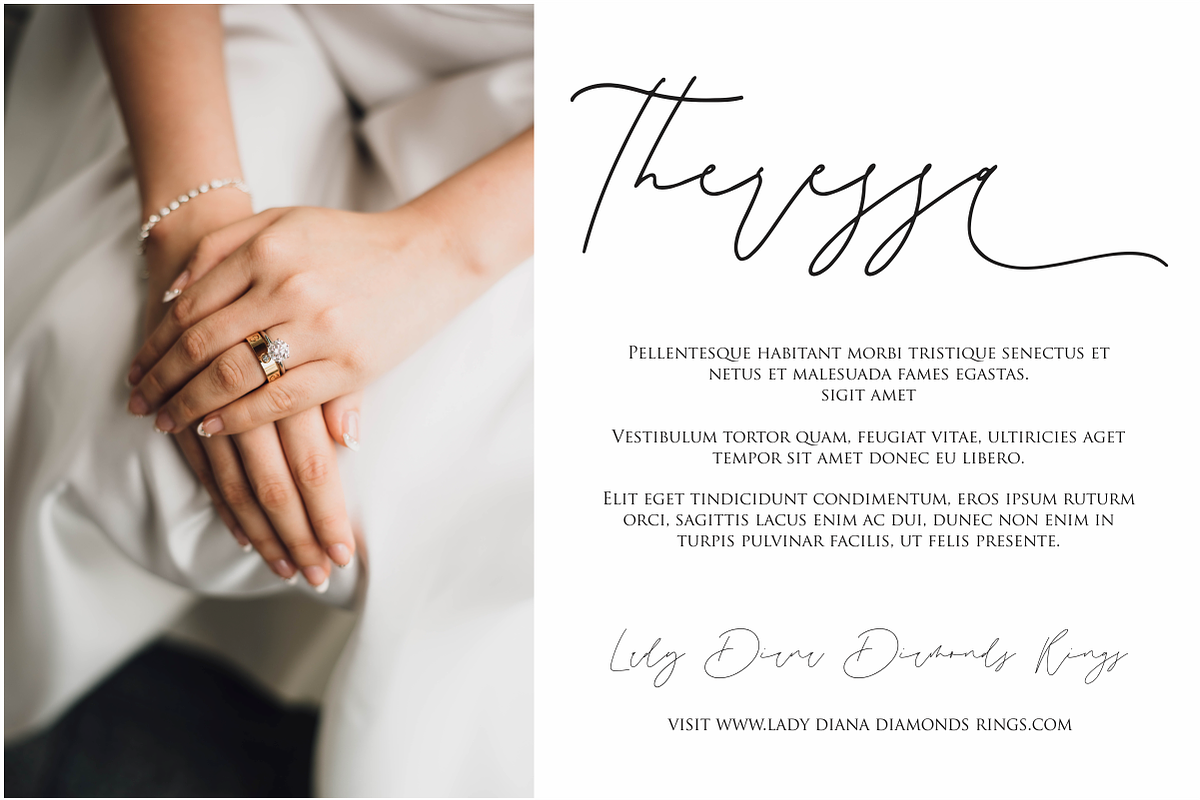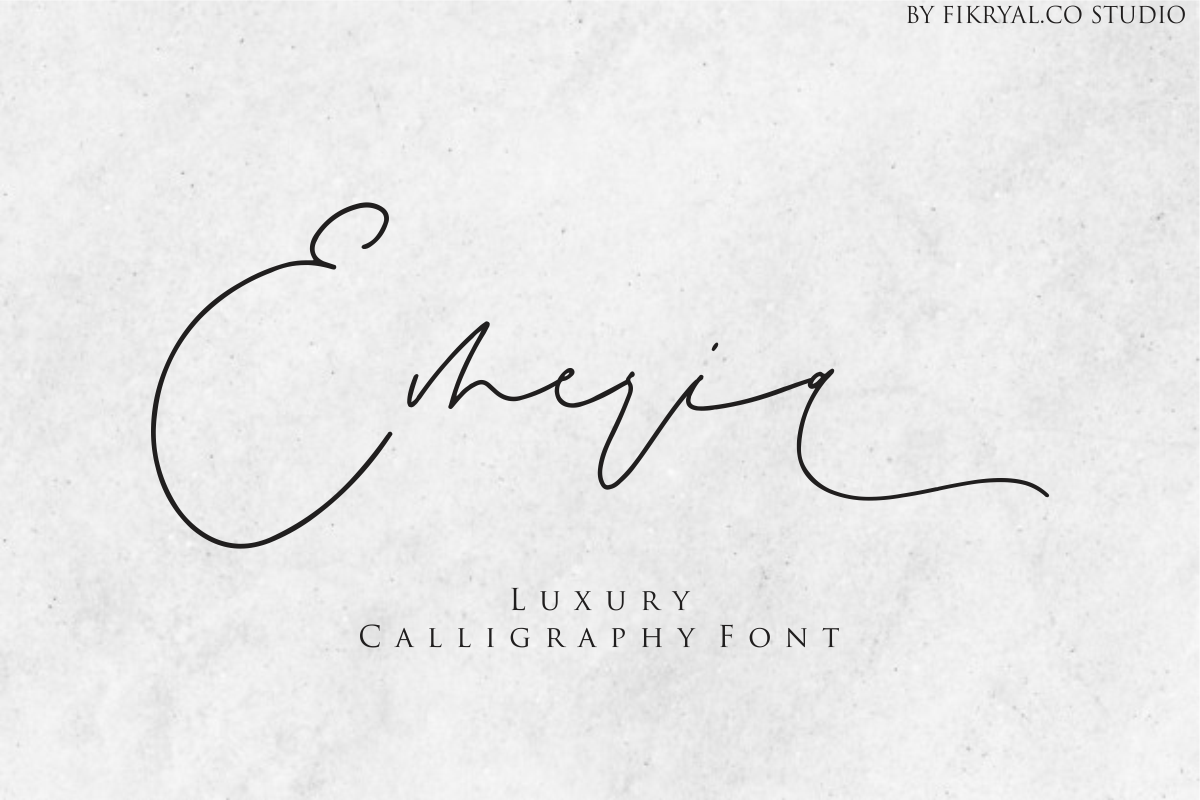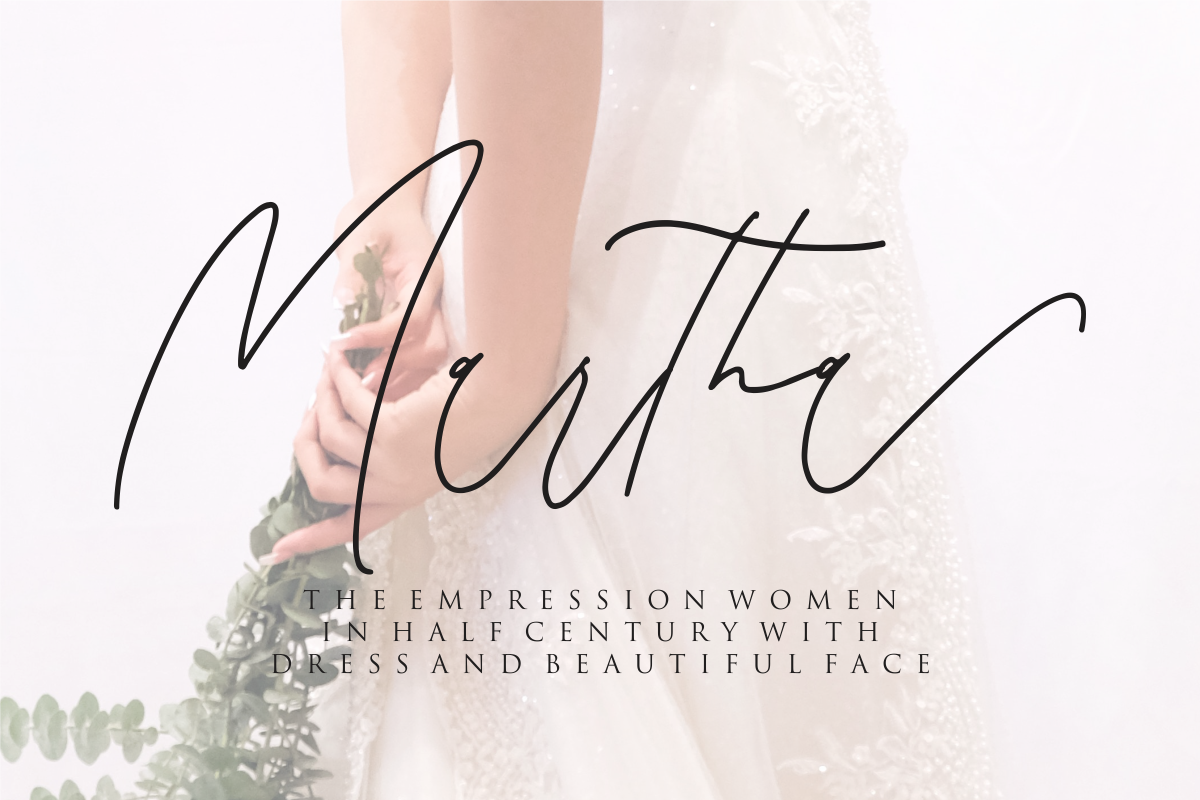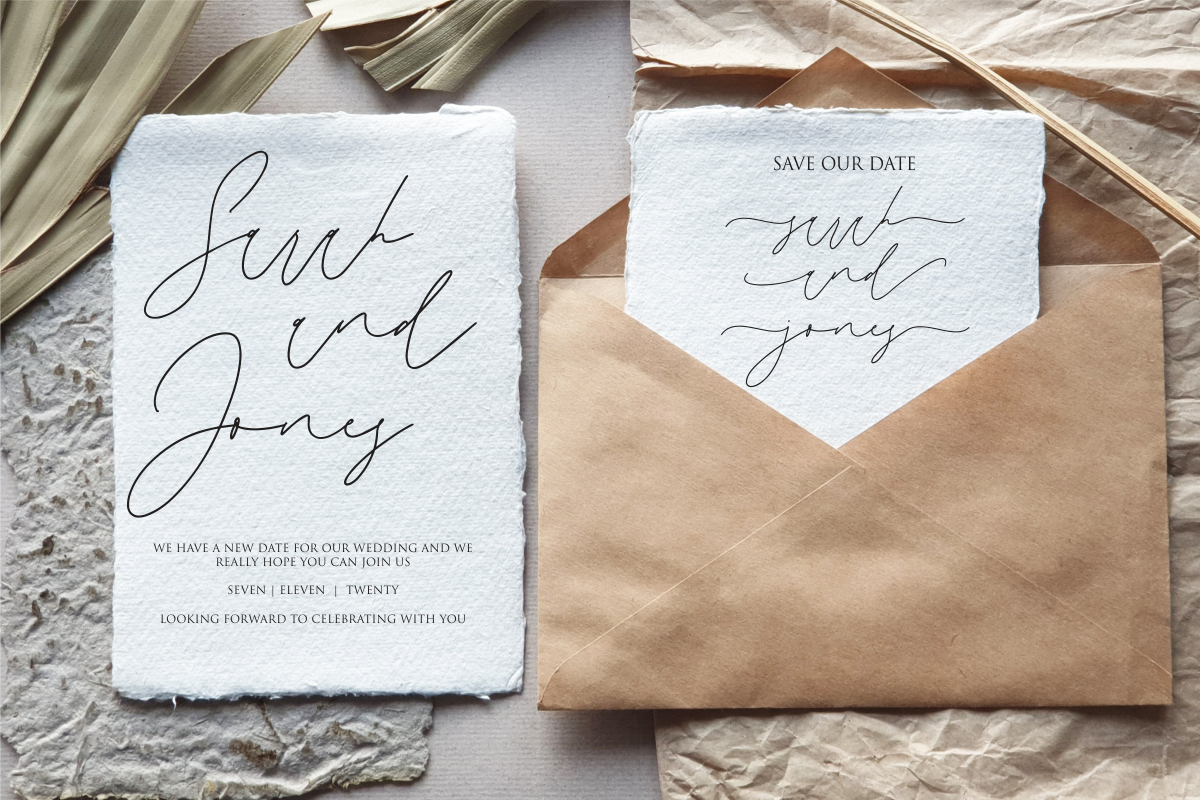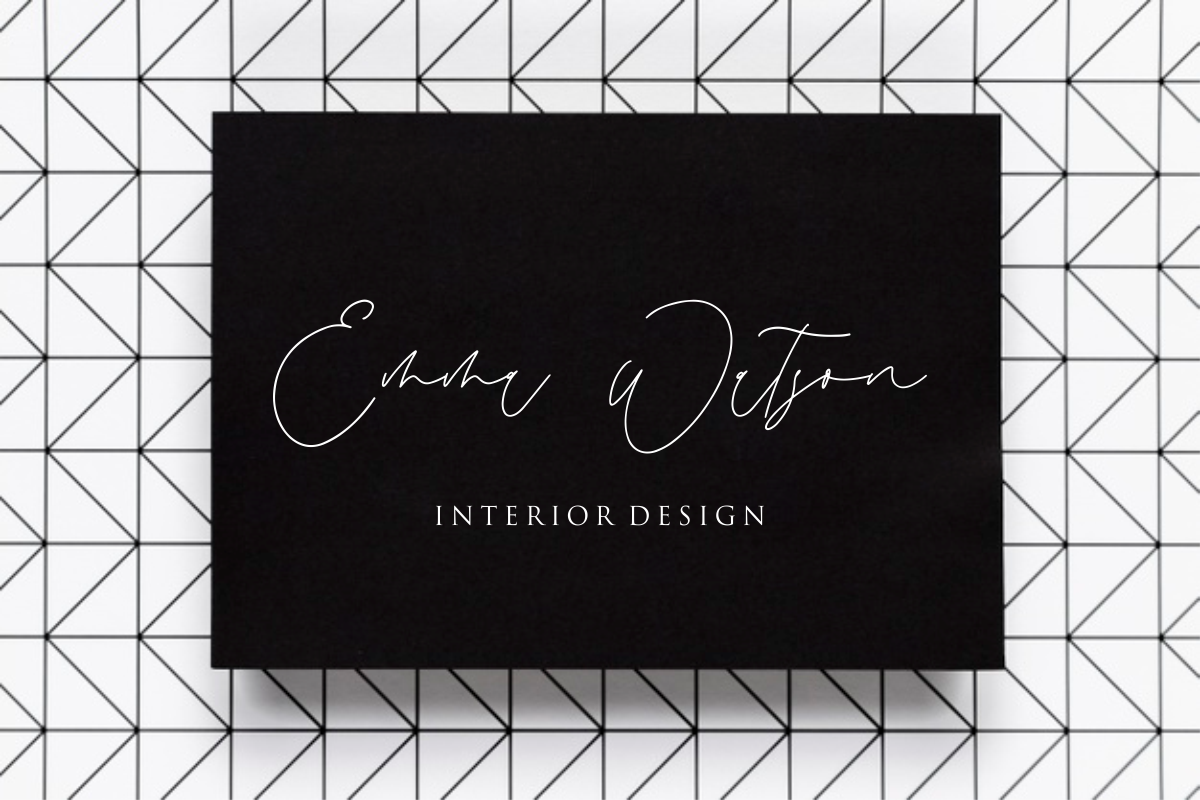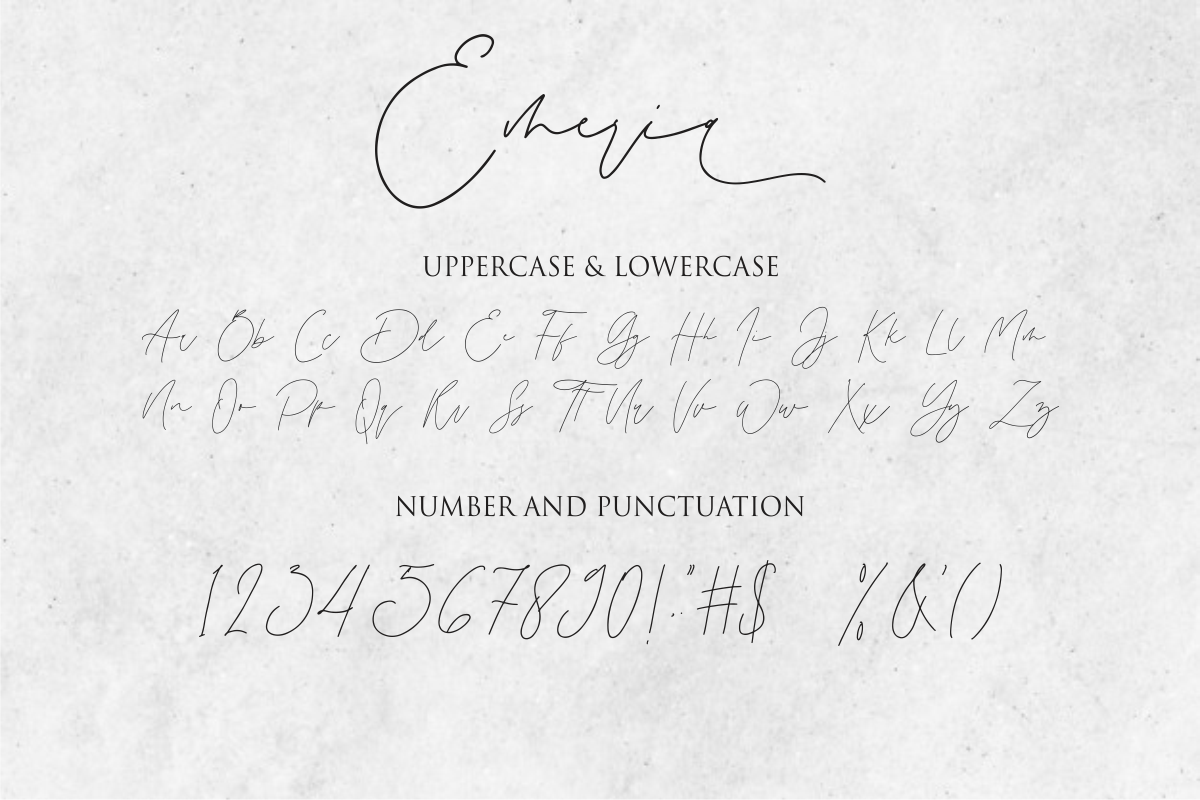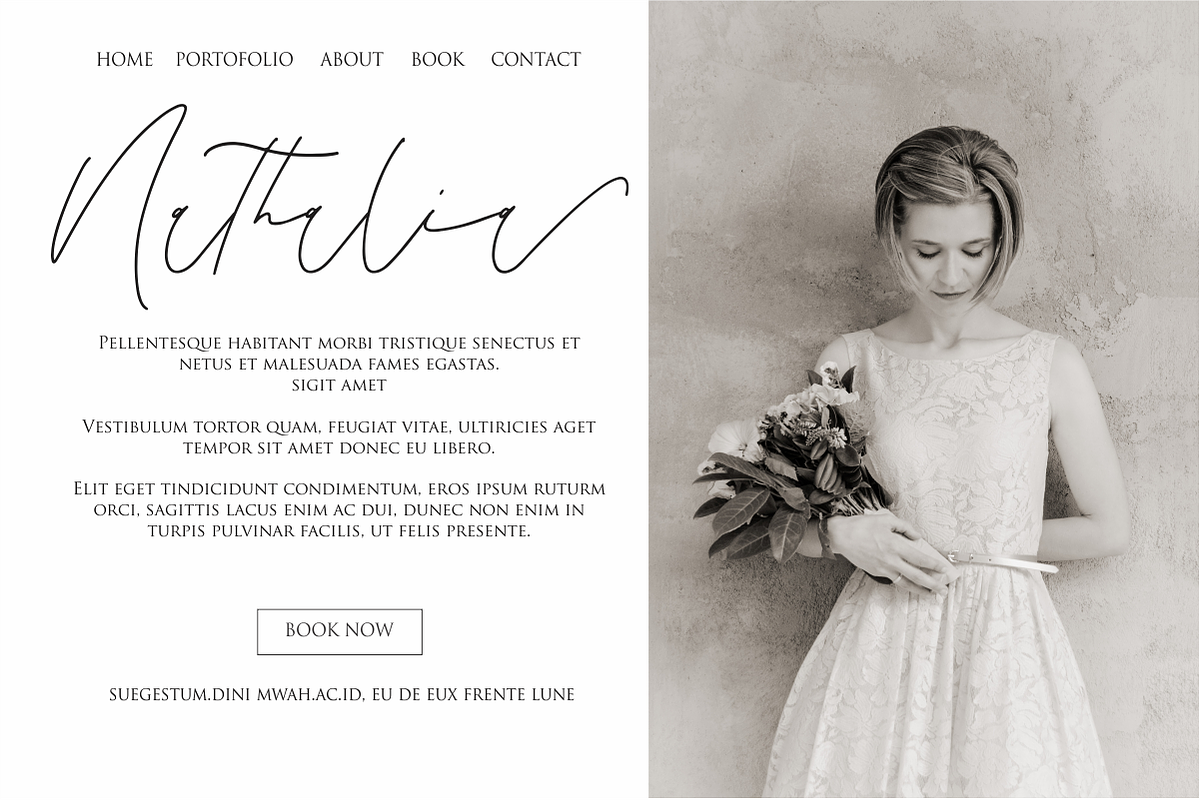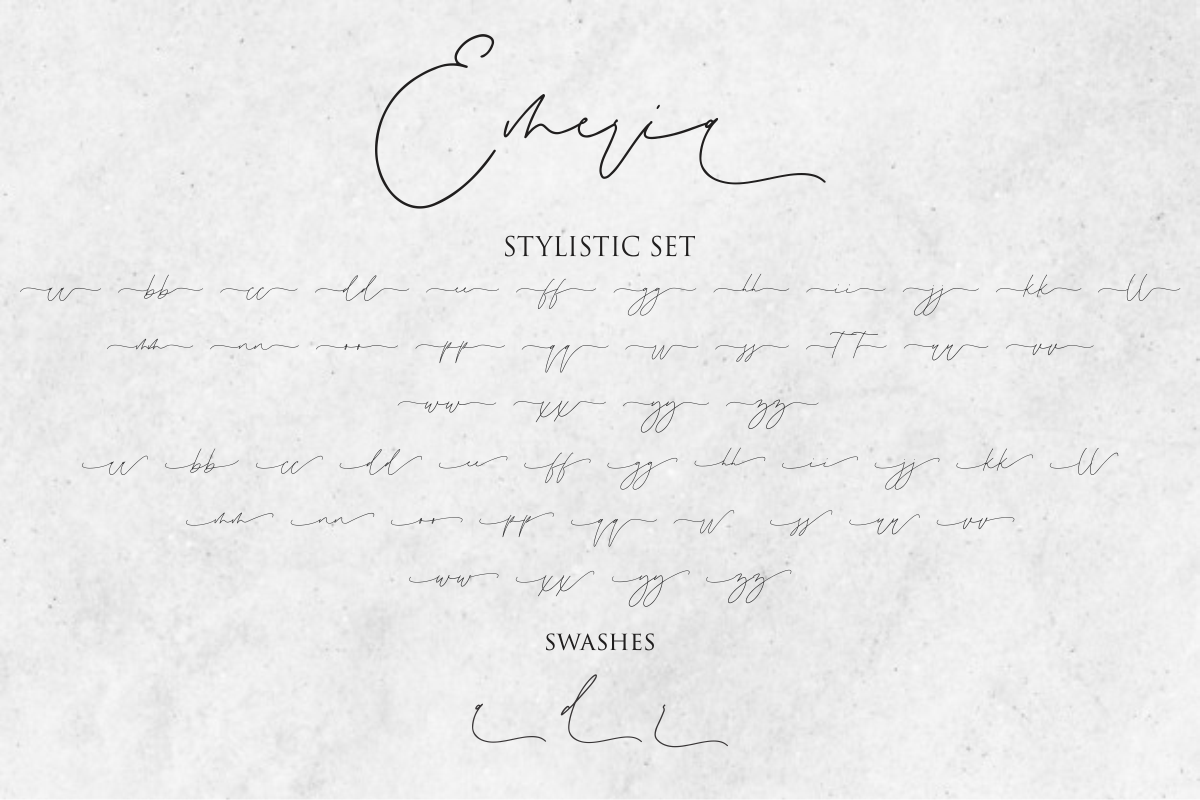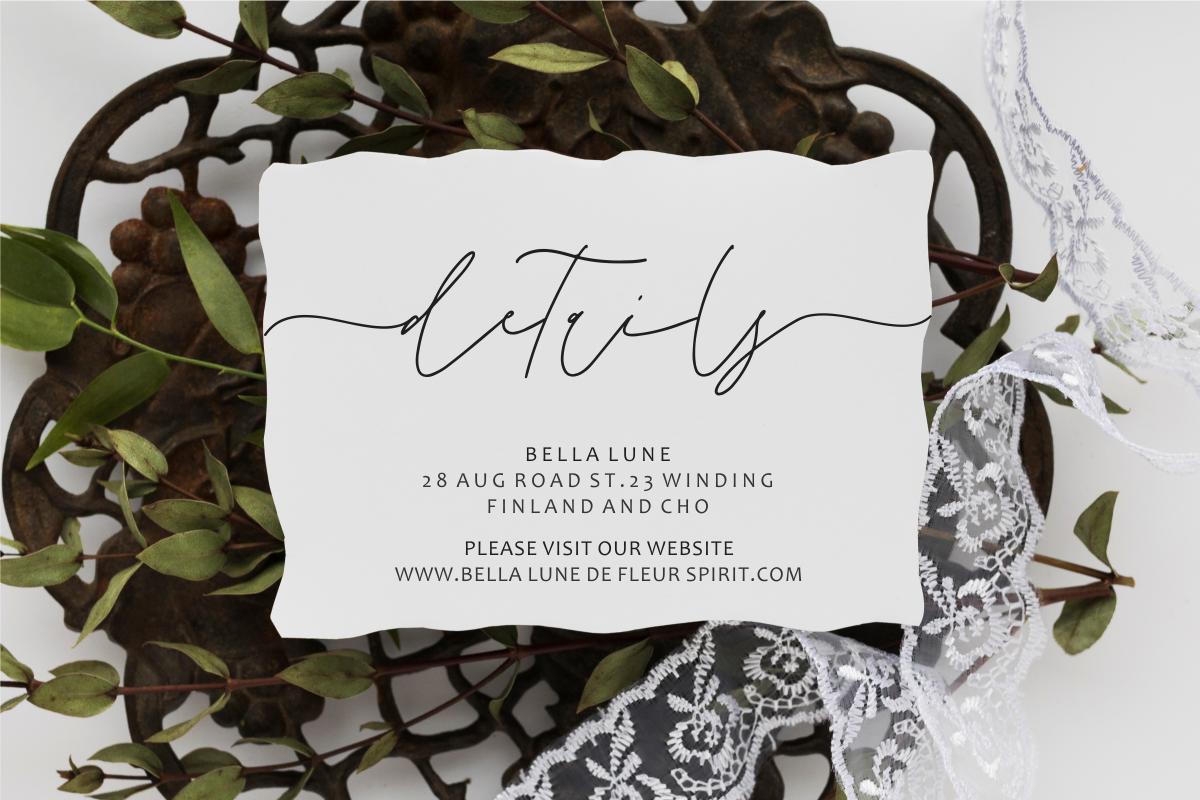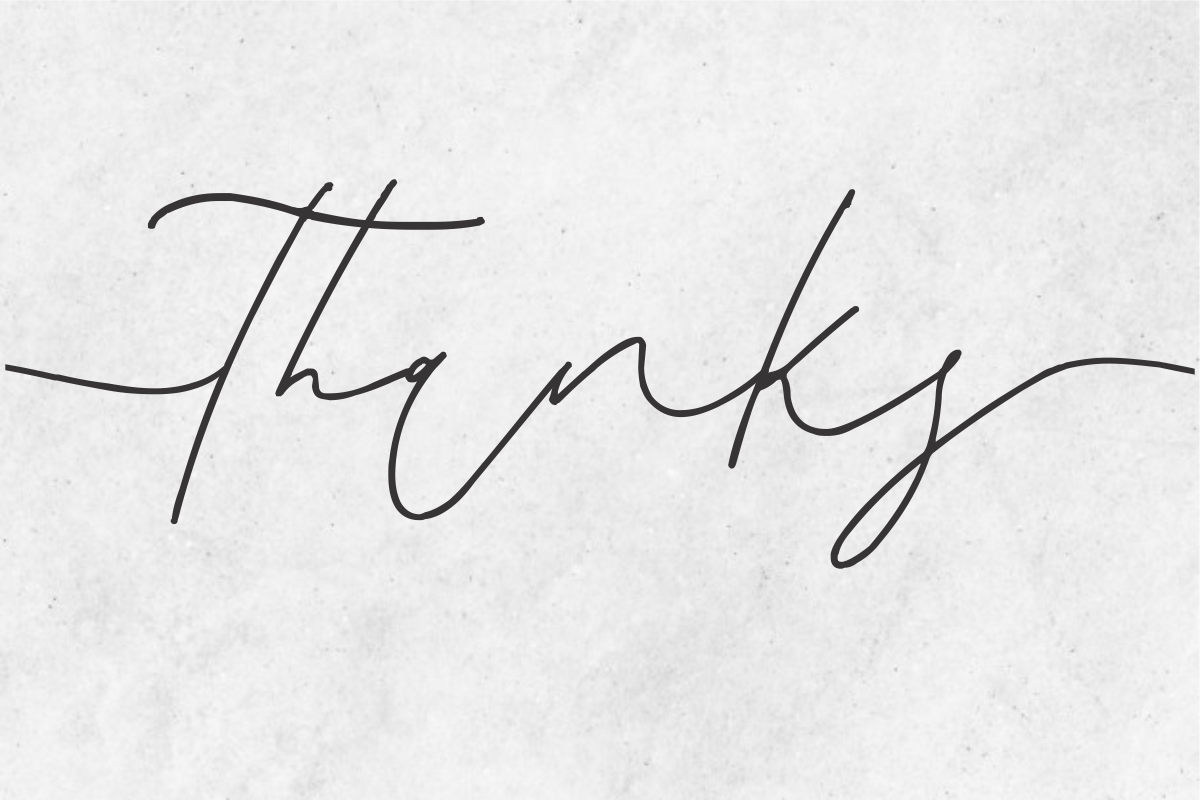
Emeria -Luxury Calligraphy Font
Emeria - Luxury Calligraphy Font
Emeria - Luxury Calligraphy Font, this font Is perfect for logos, invitations, stationery, wedding designs, social media posts, advertisements, product packaging, product designs, label, photography, watermark, special events, or anything.
Emeria comes with a full set of uppercase and lowercase letters, uppercase, and lowercase swashes, multilingual symbols, numerals, punctuation.